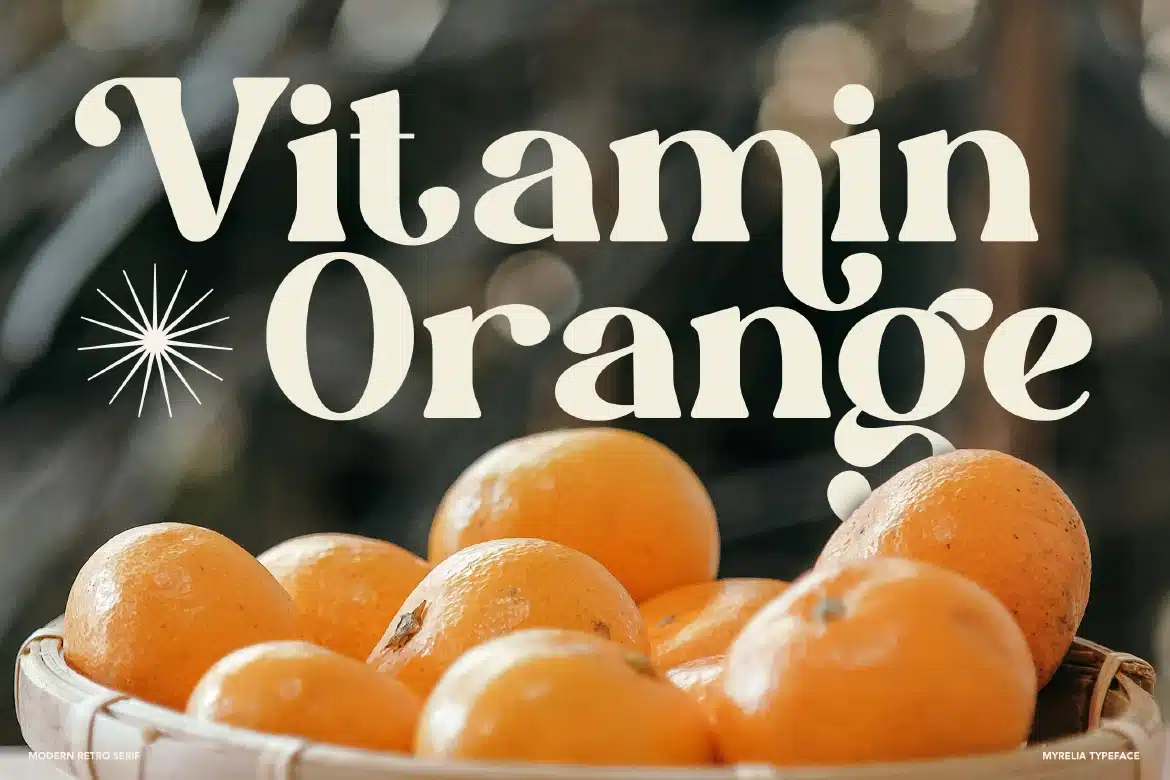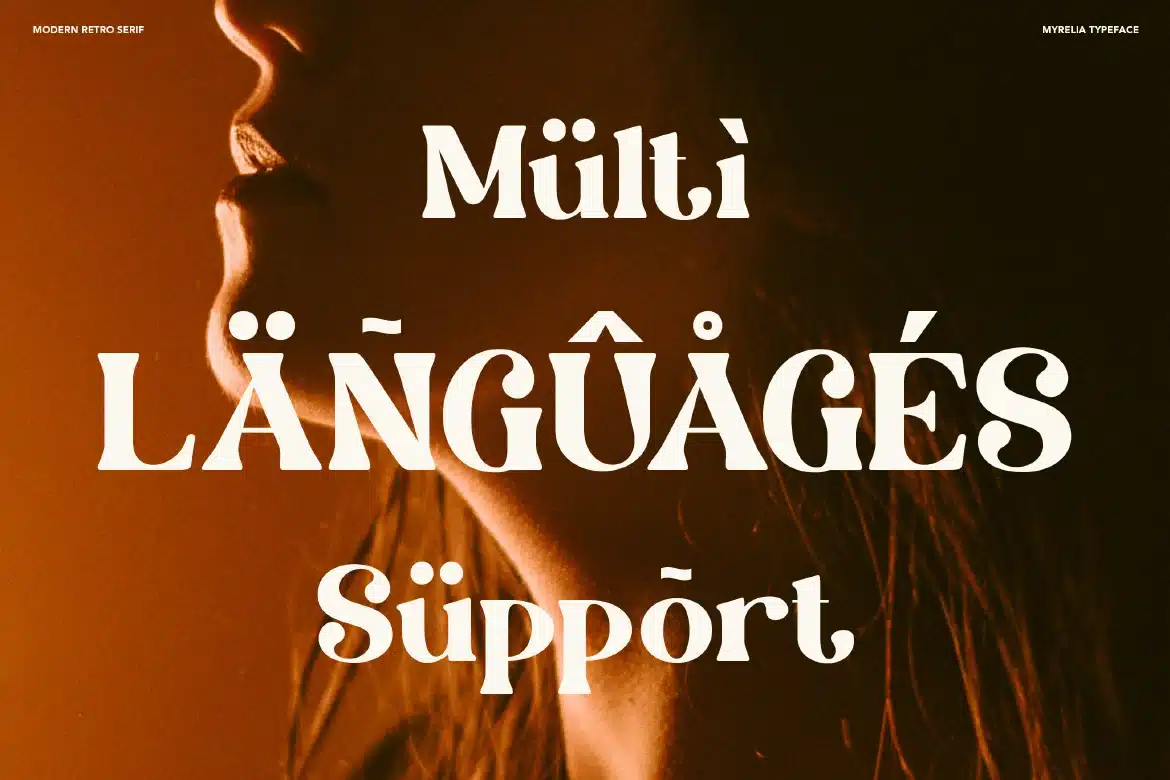
Modern Retro Serif Font – Myrelia
Myrelia is a modern retro serif typeface that beautifully blends nostalgic charm with a contemporary twist. Featuring stylish curves, subtle vintage details, and balanced letterforms, Myrelia creates a warm and distinctive visual presence. Its retro-inspired character brings personality and uniqueness, while its modern touch keeps designs feeling fresh and relevant. Whether for branding, editorial layouts, or creative projects, Myrelia delivers a timeless yet trendy typographic style.
Who Should Use Myrelia?
Myrelia is perfect for designers, creatives, and brands who love combining vintage aesthetics with modern design. It’s especially suited for projects that require a retro feel with a stylish and contemporary edge.
Retro and vintage branding
Fashion and lifestyle projects
Editorial and magazine layouts
Logo and identity design
Packaging and product labels
Café and boutique branding
Social media visuals
Creative typography compositions